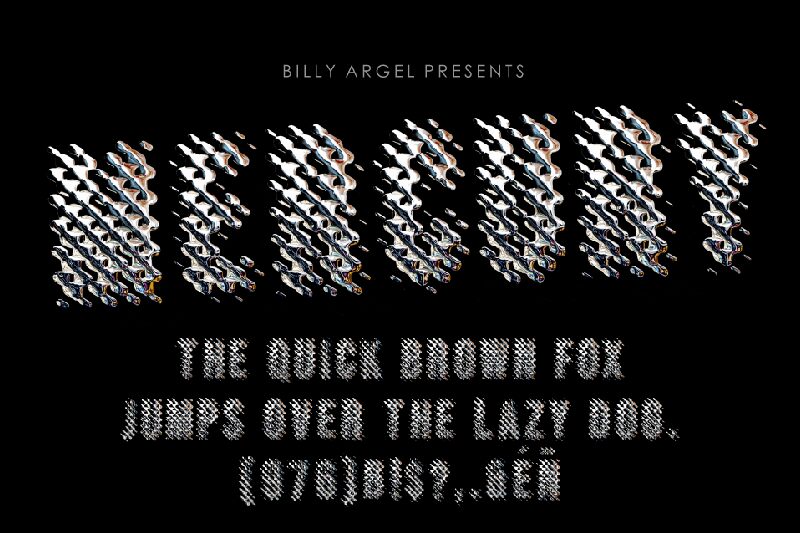
MERCURY Italic, from the renowned MERCURY font family by Billy Argel Fonts, is a captivating display font that exudes a distinctively distorted aesthetic. With its bold weight and extra-condensed width, this font adds a touch of edginess to any design project.
Perfect for album covers, movie posters, and streetwear branding, MERCURY Italic grabs attention with its unique style and demands to be noticed.
Let your creativity run wild as you elevate your designs with the captivating appeal of MERCURY Italic.